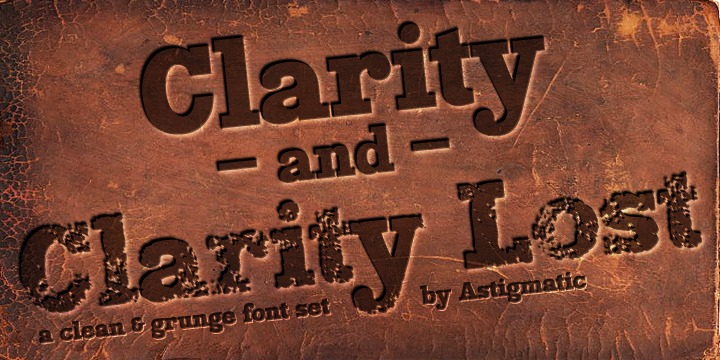
Clarity and Clarity Lost play on readability, from extremely legible to bordering on hard to read and worn away, offering the designer a range of use.